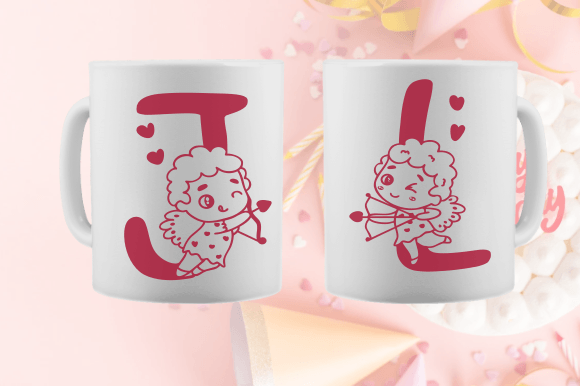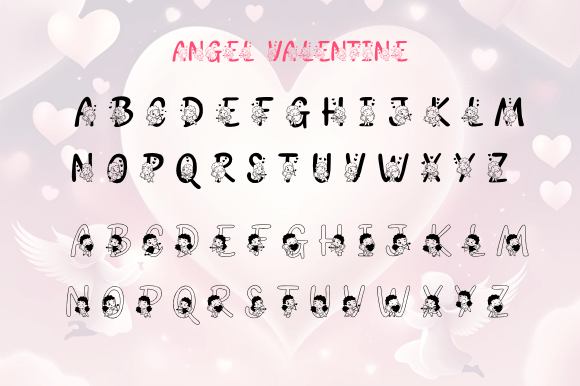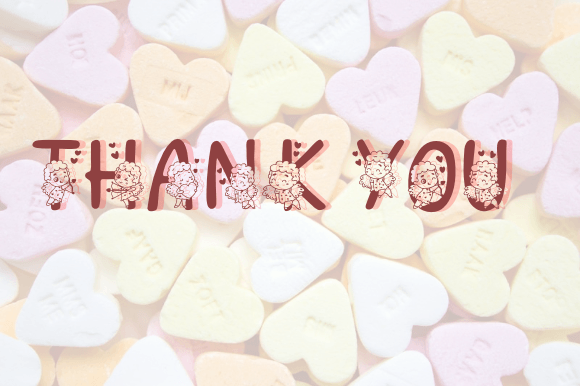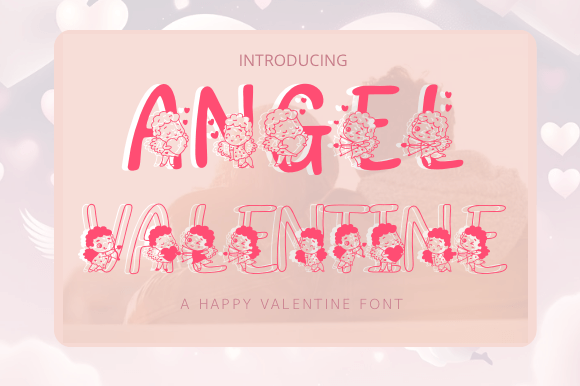
The Quest for the Perfect Font: Discovering Angel Valentine
I still remember the design project that led me to discover the charming Angel Valentine font. I was working on a series of chalkboard-style quotes for a client’s social media campaign, and I was struggling to find the right font. I wanted something that would add a personal touch to the designs, something that would make them stand out from the usual sans-serif fonts. After hours of browsing through font libraries, I stumbled upon Angel Valentine, and it was love at first sight! 💕
A Personal and Realistic Touch: My Honest Review
Angel Valentine is a cute and simple-lettered handwritten font that’s perfect for creating chalkboard quotes, teaching materials, and more. Here’s what I love about it:
• ✨ Authentic look: The font has a genuine, hand-written feel that adds a personal touch to any design.
• ✅ Easy to read: Despite its handwritten nature, Angel Valentine is surprisingly easy to read, even at smaller font sizes.
• 💖 Versatile: The font works well for a variety of design projects, from educational materials to social media graphics.
Of course, no font is perfect, and Angel Valentine has a few quirks:
• 🤔 Limited character set: While the font has a range of characters, it’s not a full-featured font with extensive language support.
• ⚠️ May not work well for body text: Due to its handwritten nature, Angel Valentine may not be the best choice for longer blocks of text.
3. Experiment with OpenType features: Angel Valentine supports OpenType features like ligatures and stylistic alternates. Experiment with these features to add some personality to your designs.
3. Explore glyphs: Angel Valentine has a range of glyphs and stylistic alternates. Explore these to add some visual interest to your designs.
3. Use it for headings: Angel Valentine works well for headings and titles. Use it to add some personality to your documents.
The Story Behind Angel Valentine
Angel Valentine was designed with the intention of creating a font that would add a personal touch to designs. The designer wanted to create a font that would evoke the feeling of hand-written notes and chalkboard quotes. With its simple, yet elegant lettering, Angel Valentine has become a popular choice for designers and crafters alike.
What is Angel Valentine font? Angel Valentine is a cute and simple-lettered handwritten font perfect for creating chalkboard quotes, teaching materials, and more.